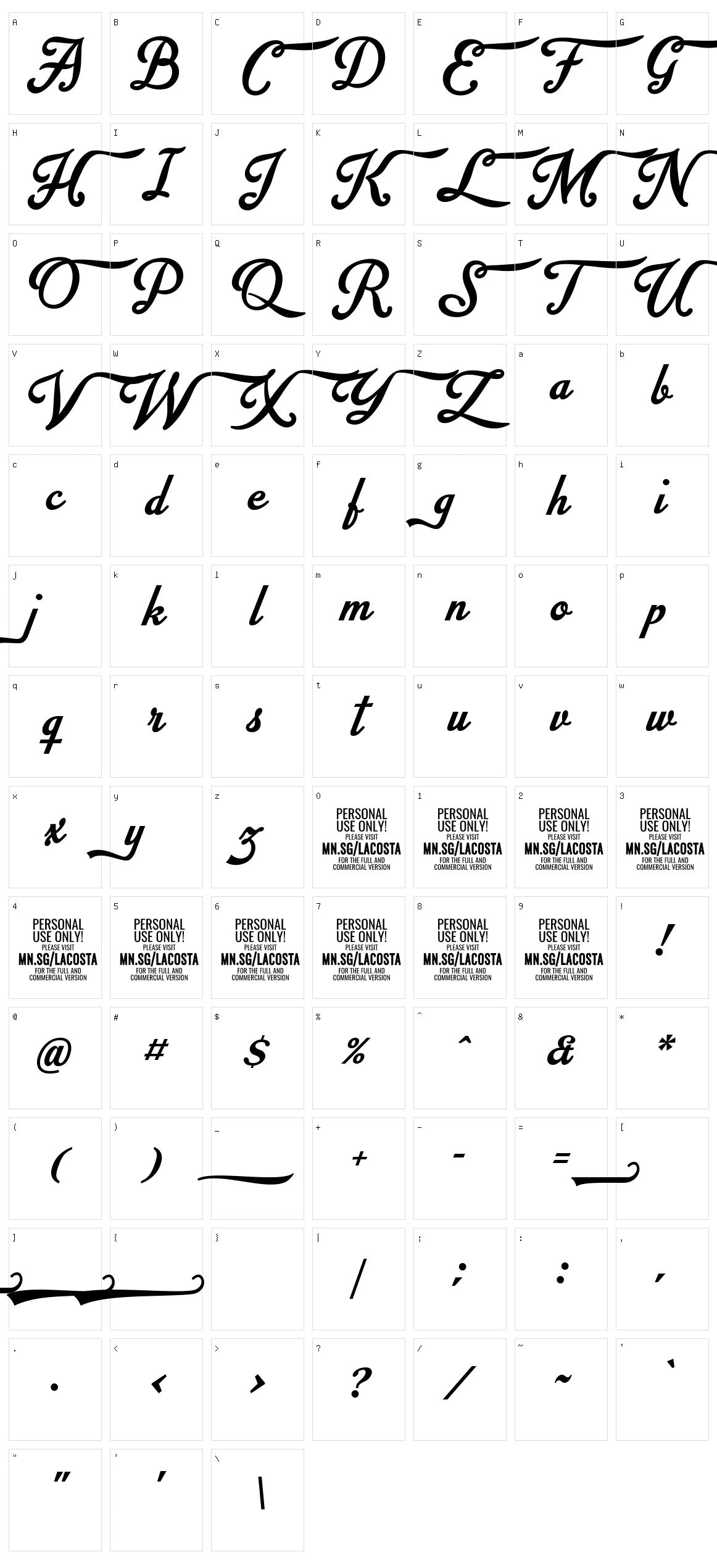
Lacosta is a decorative script typeface, drawn and created by Måns Grebäck during 2020.
Perfect for company or product logotypes, or any typographic art that requires that classic custom look.
Included in the family is the Lacosta Line typeface, a swash underlined variation of the original font.
In addition to being a beautiful, ornamental lettering, it also has a lot of decorative and swash options:
Use the symbols [ ] { } _ to create connections, swashes and decorations.
Example: Extra[ Sweet]
The font contains multiple OpenType functions, and is filled with alternates; stylistic alternates to give extra personality, and contextual alternates to make the letters flow with one another smoothly -- just as a custom logo.
Lacosta has a very extensive lingual support, covering all European Latin scripts.
The font contains all characters you'll ever need, including all punctuation and numbers.